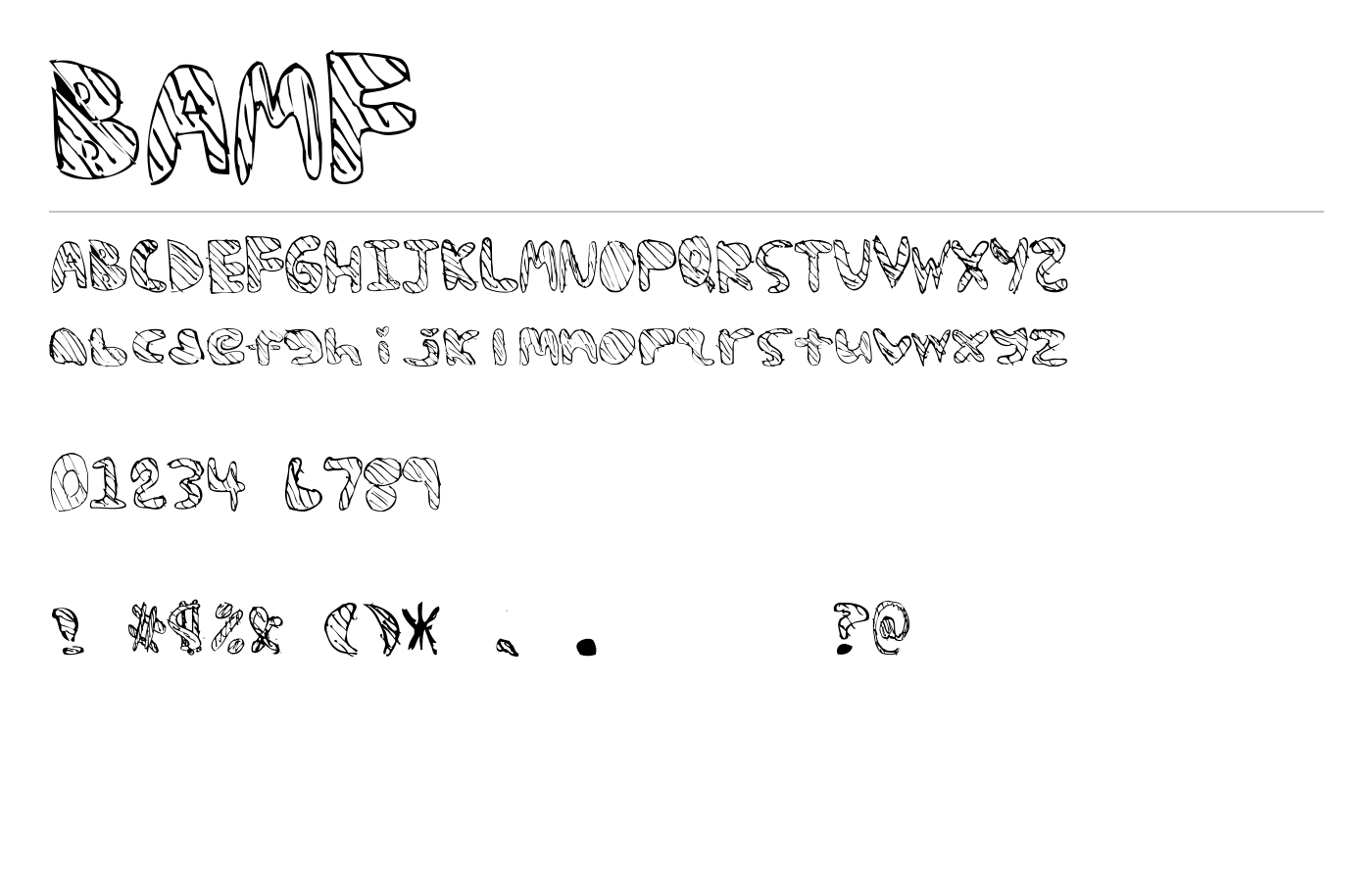
BAMF is a playful, hand-drawn display font characterized by its thick, irregular outlines and dynamic hatch shading inside each letter, giving it a bold and quirky personality. Its uneven, whimsical shapes make it ideal for fun, creative designs that want to stand out with a casual, artistic vibe. This font works best for eye-catching headlines, posters, and branding that aims to feel energetic and informal.
BAMF Font
About BAMF Font